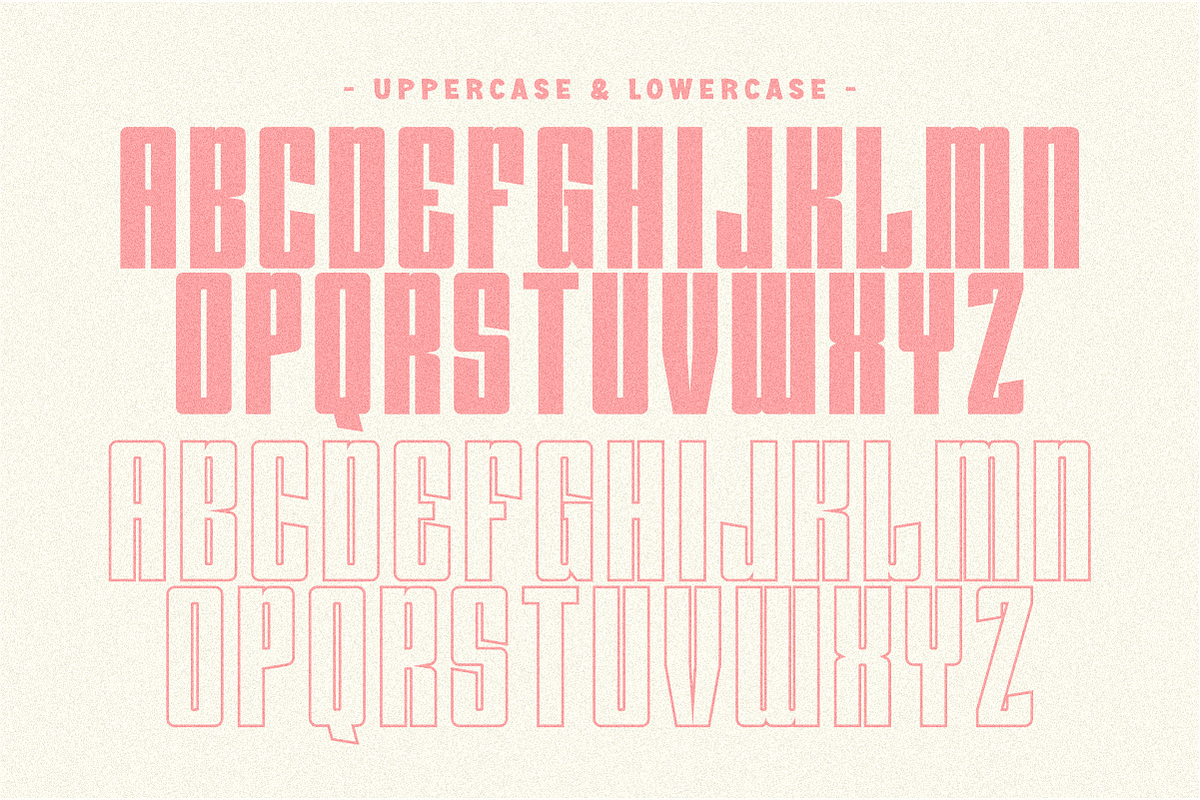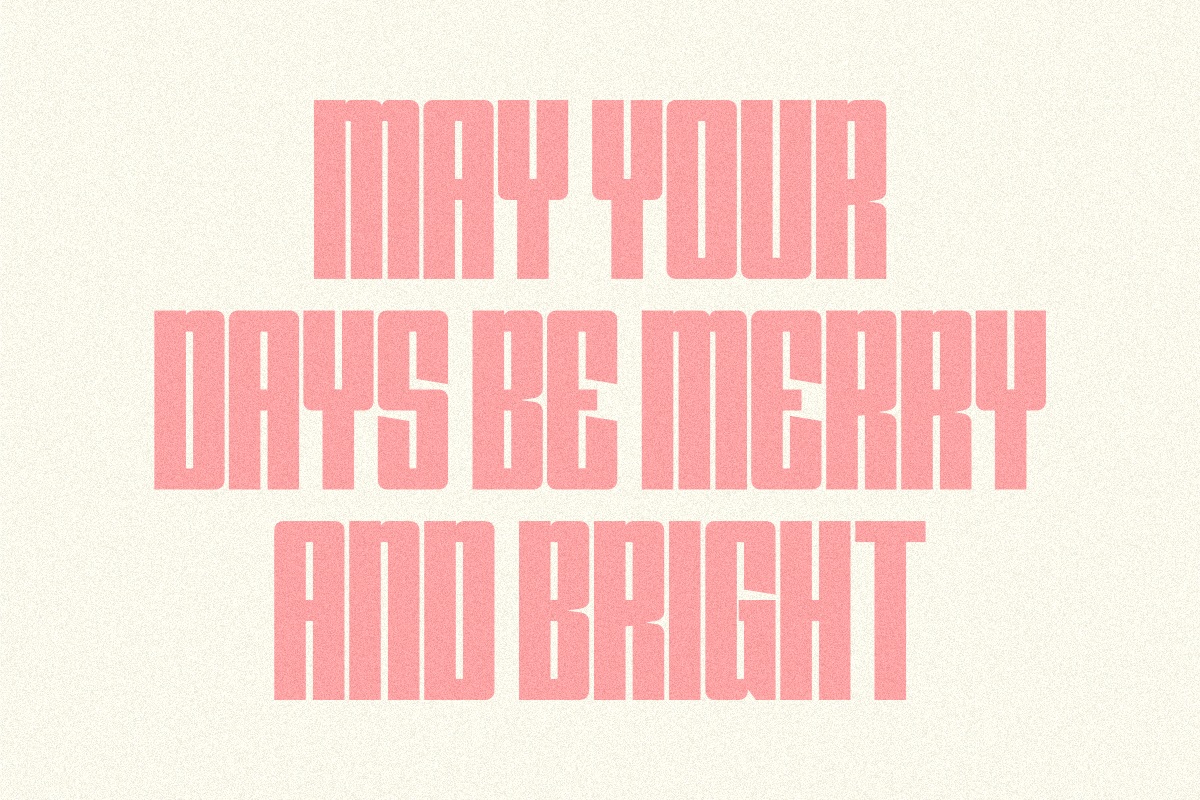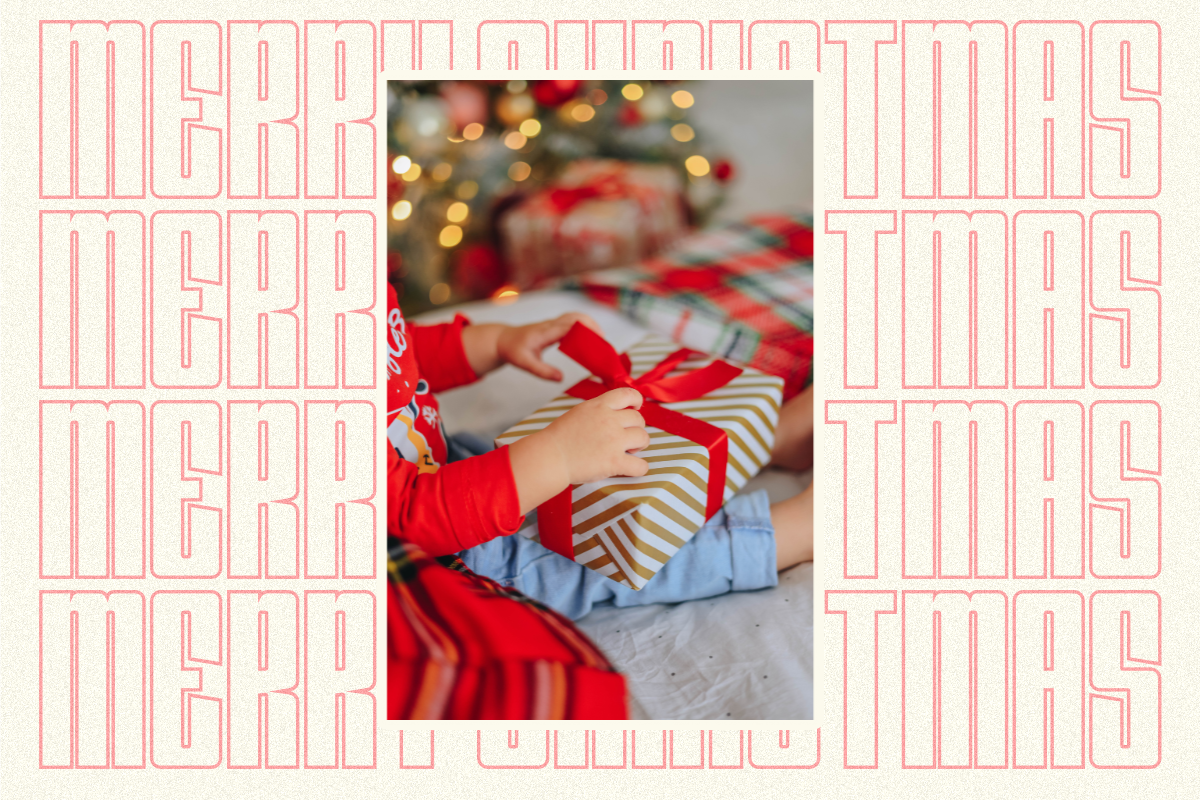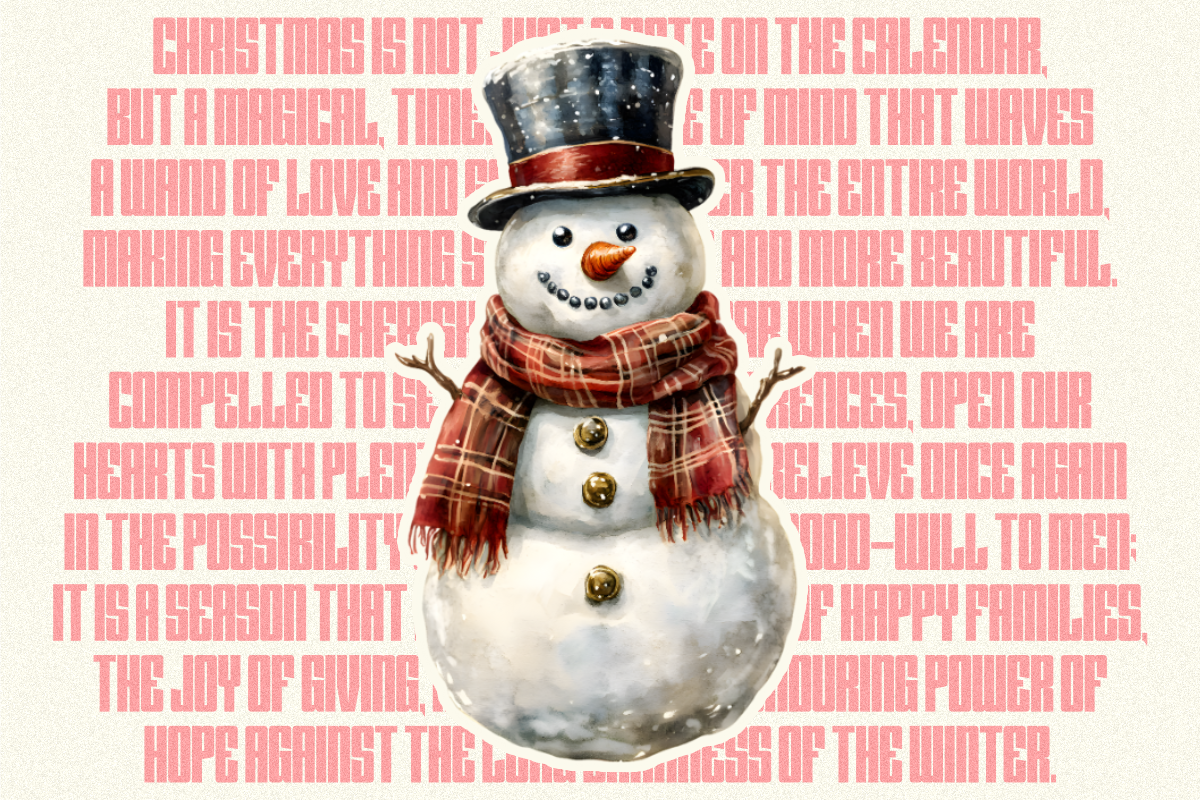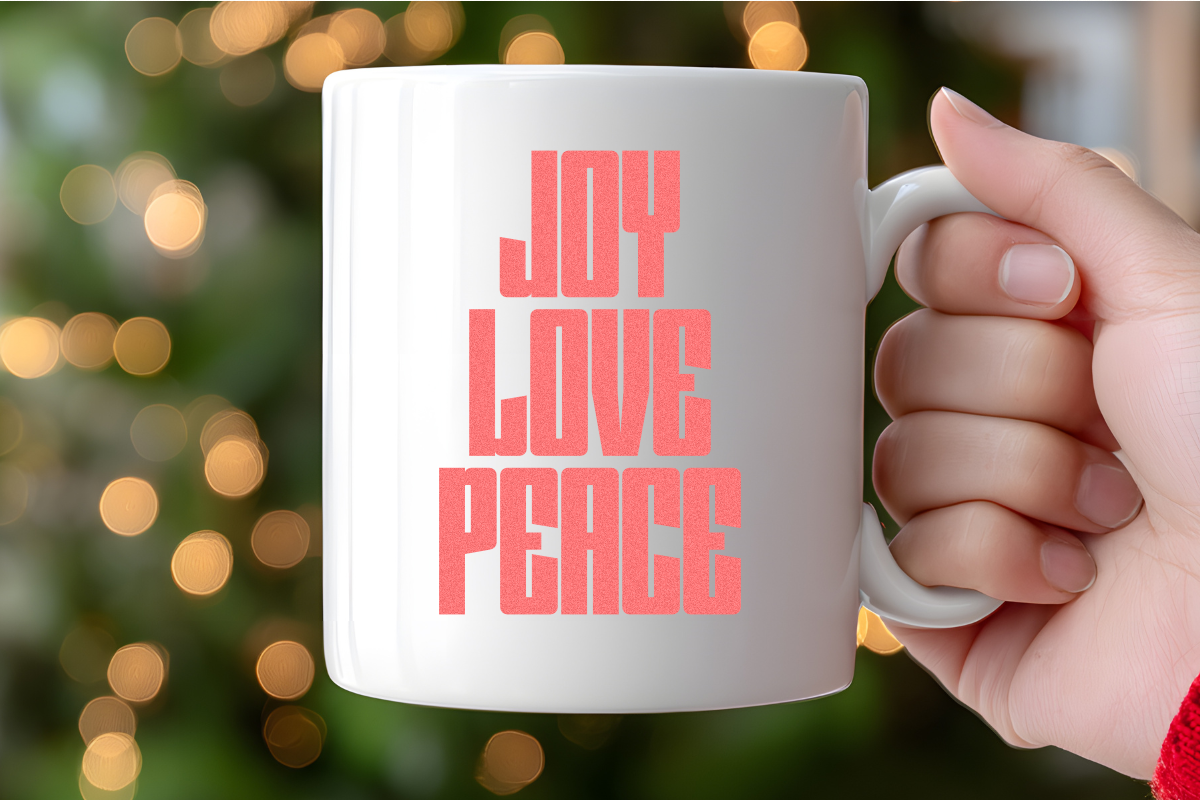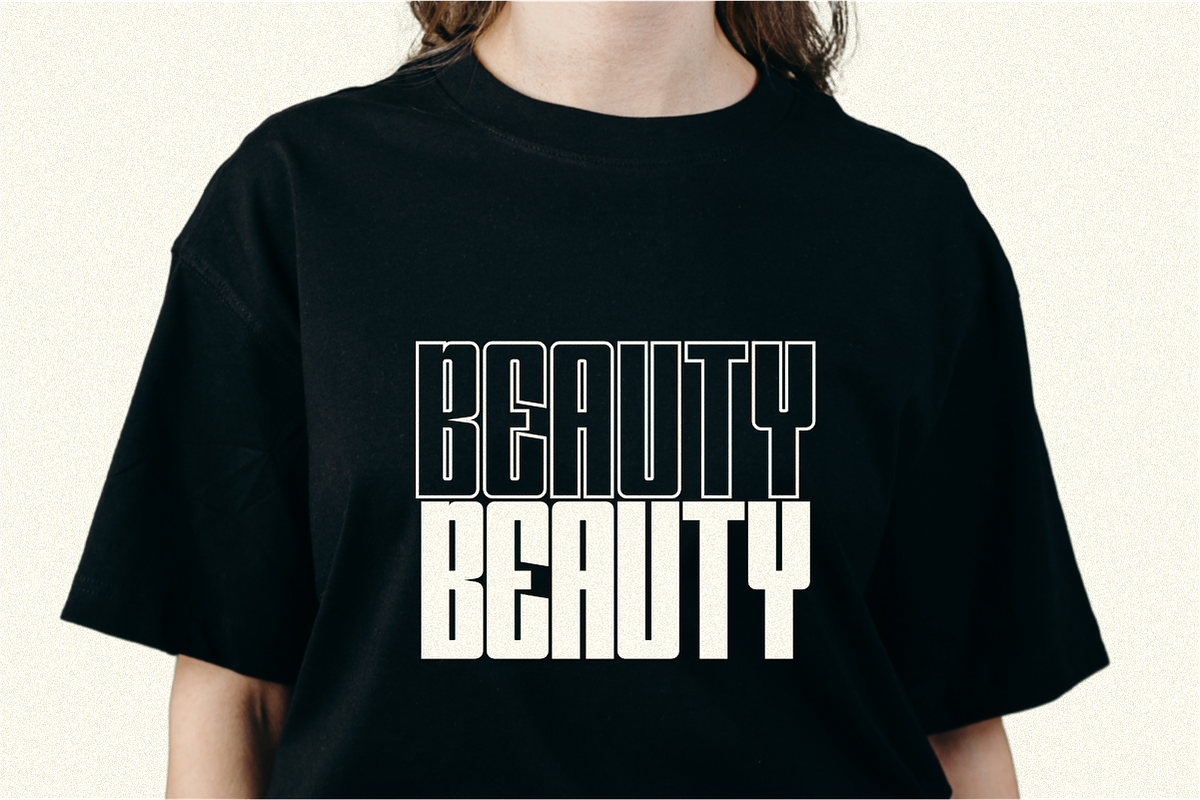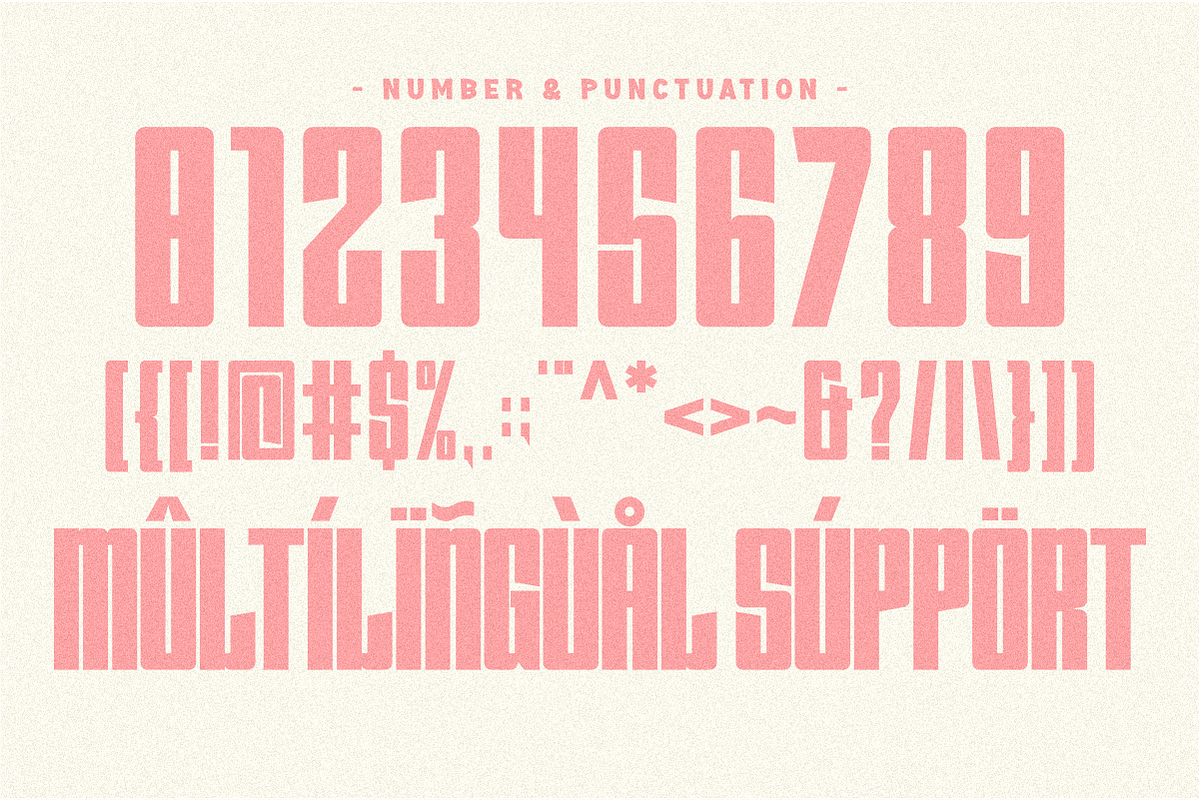
Seven Season - Condensed Sans Serif
Seven Season is a super bold and blocky Condensed Sans Serif Font that screams retro fun. This typeface includes both a solid Regular and a distinct Outline style, making it perfect for layered effects and creative color-blocking. With its chunky, vintage aesthetic, it's ideal for retro branding, 70s and 80s themed projects, oversized headlines, product packaging, t-shirt designs, and any project that needs a strong, nostalgic, and playful display font. Use this highly impactful font to instantly transport your designs back to the groovy era. Both the Regular and Outline versions ensure maximum versatility for your design needs.